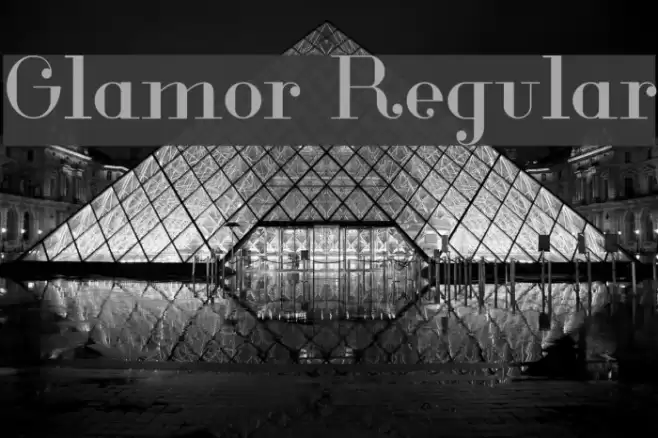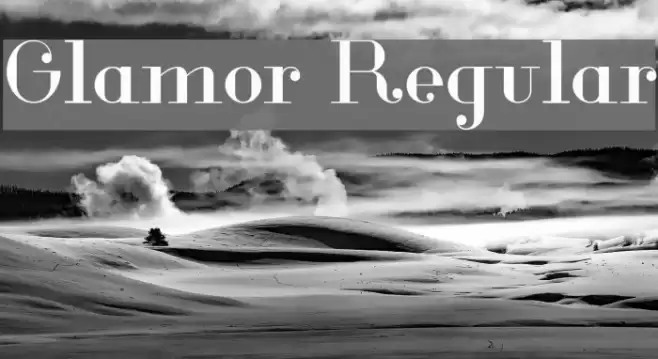
Glamor Regular Font
Glamor Regular Description
This font exhibits a sophisticated and elegant style, characterized by its high contrast between thick and thin strokes. The uppercase letters are particularly striking, with unique flourishes and a modern twist on traditional serif forms. The lowercase letters maintain a consistent style, offering a harmonious blend of classic and contemporary elements. The numerals are distinct and stylish, complementing the overall aesthetic. Special characters are designed with the same attention to detail, enhancing the font's versatility. This font is ideal for projects that require a touch of luxury and refinement.
A sophisticated serif font with high contrast and elegant flourishes from Serif fonts.
- Contrast: High